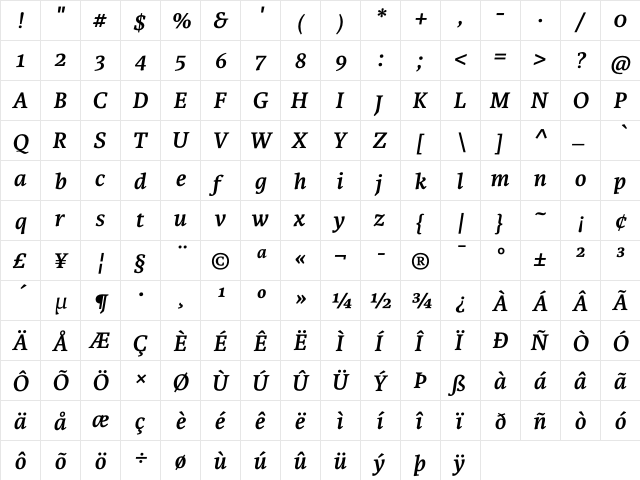
Karmina Bold Italic
| Foundry | Type-Together |
| Designer | JosϠScaglione, Veronika Burian |
Design Context for Karmina Typeface
Karmina takes a measured approach to typography — its balanced proportions and neutral character make it a reliable workhorse for both digital and print work. The dynamic lean of this cut emphasises speed and emphasis in any layout. Its bold stroke weight gives it real presence on the page.
Pro Tip: Use Karmina for emphasis, pull quotes, and subheadings where its slanted energy can add rhythm to the layout.